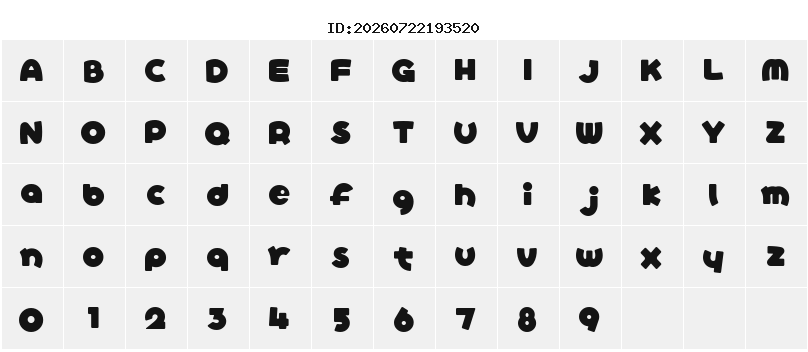
mitsubatoALround Preview
• Font Name: mitsubatoALround
• Full Font Name: mitsubatoALround
• PostScript Name: MitsubatoALround
About mitsubatoALround.ttf
mitsubatoALround.ttf is a modern, elegant sans-serif font designed for ultimate readability and visual harmony. Perfect for branding, headlines, web design, and print materials.